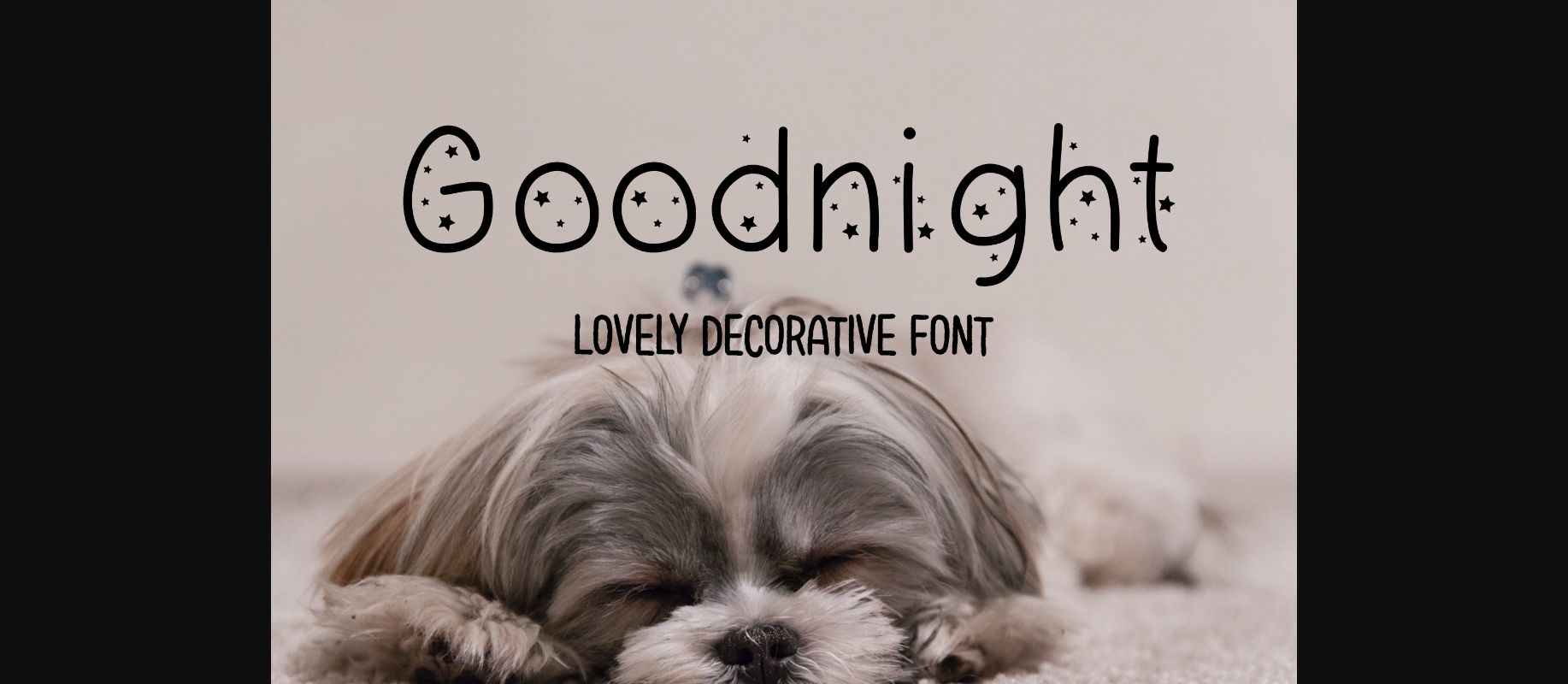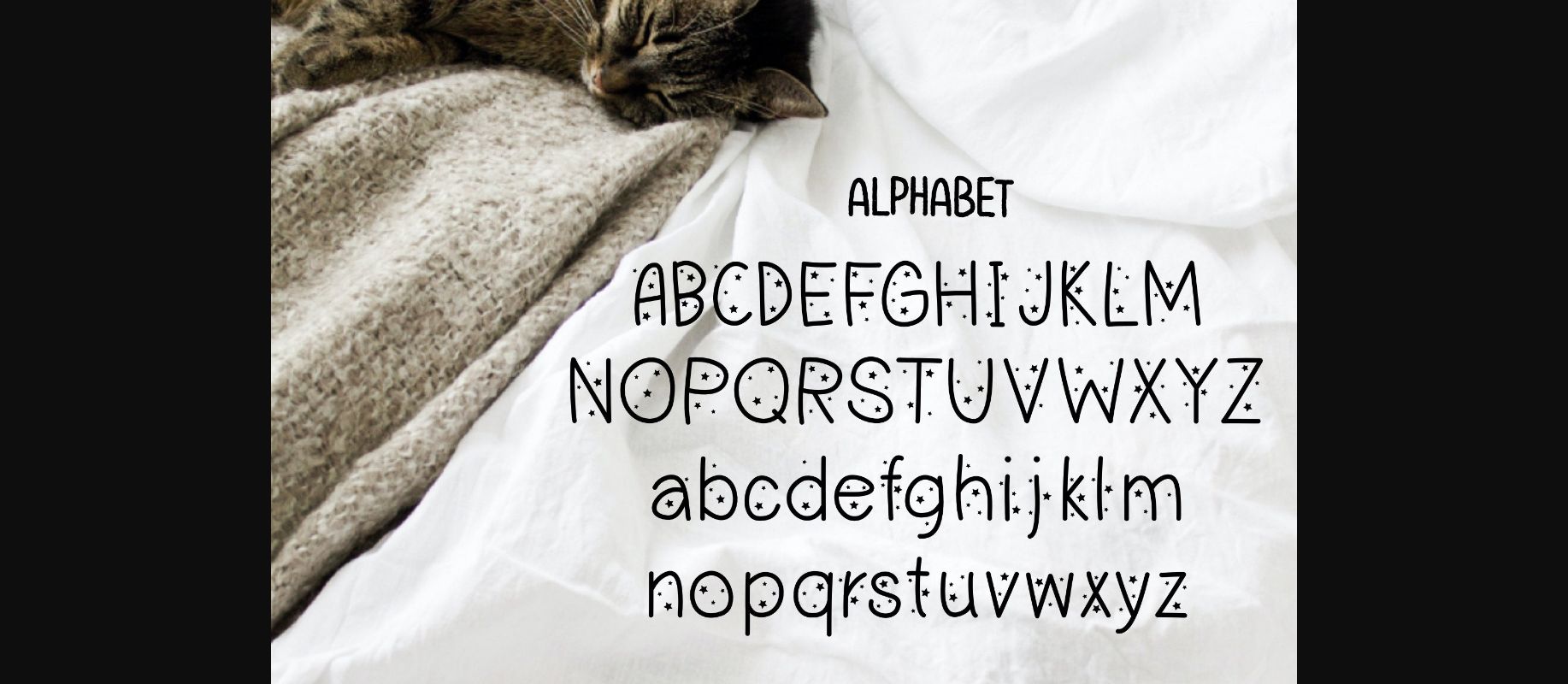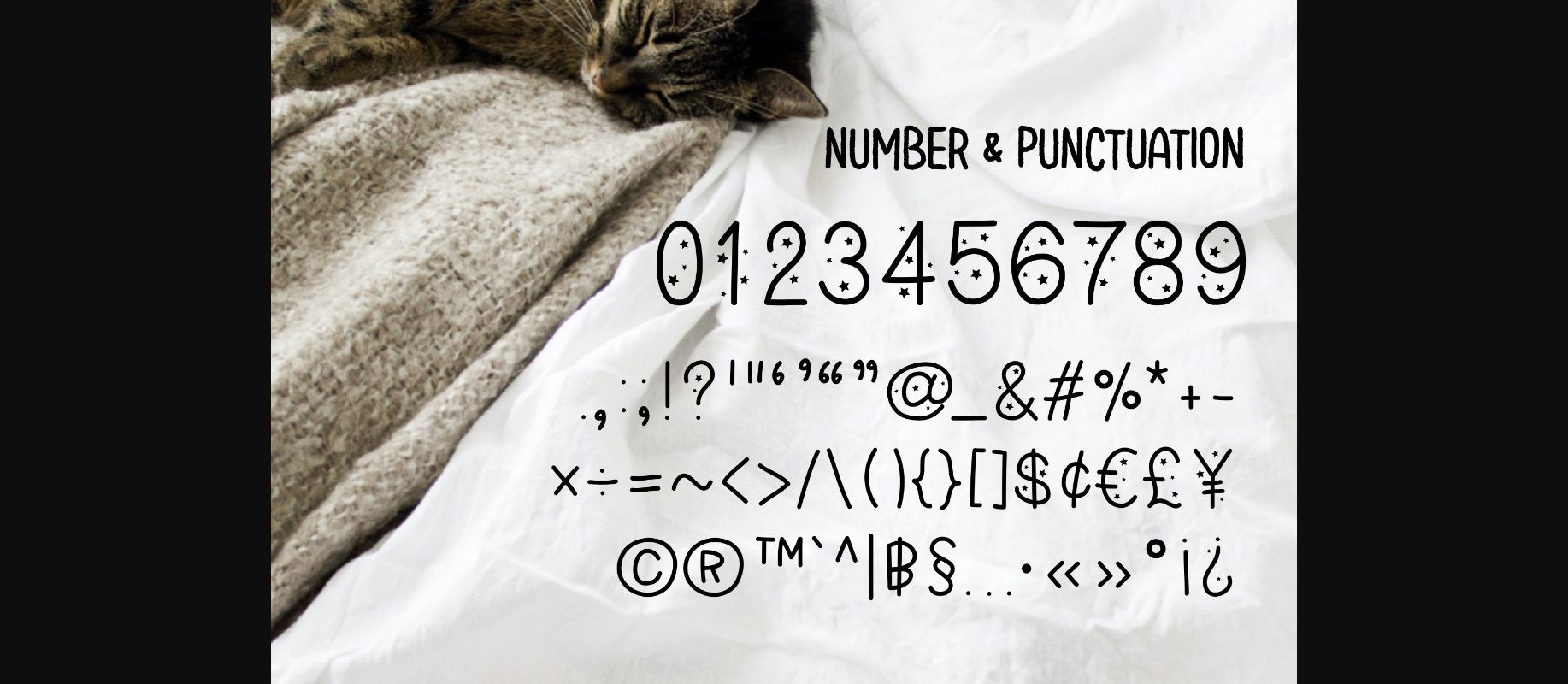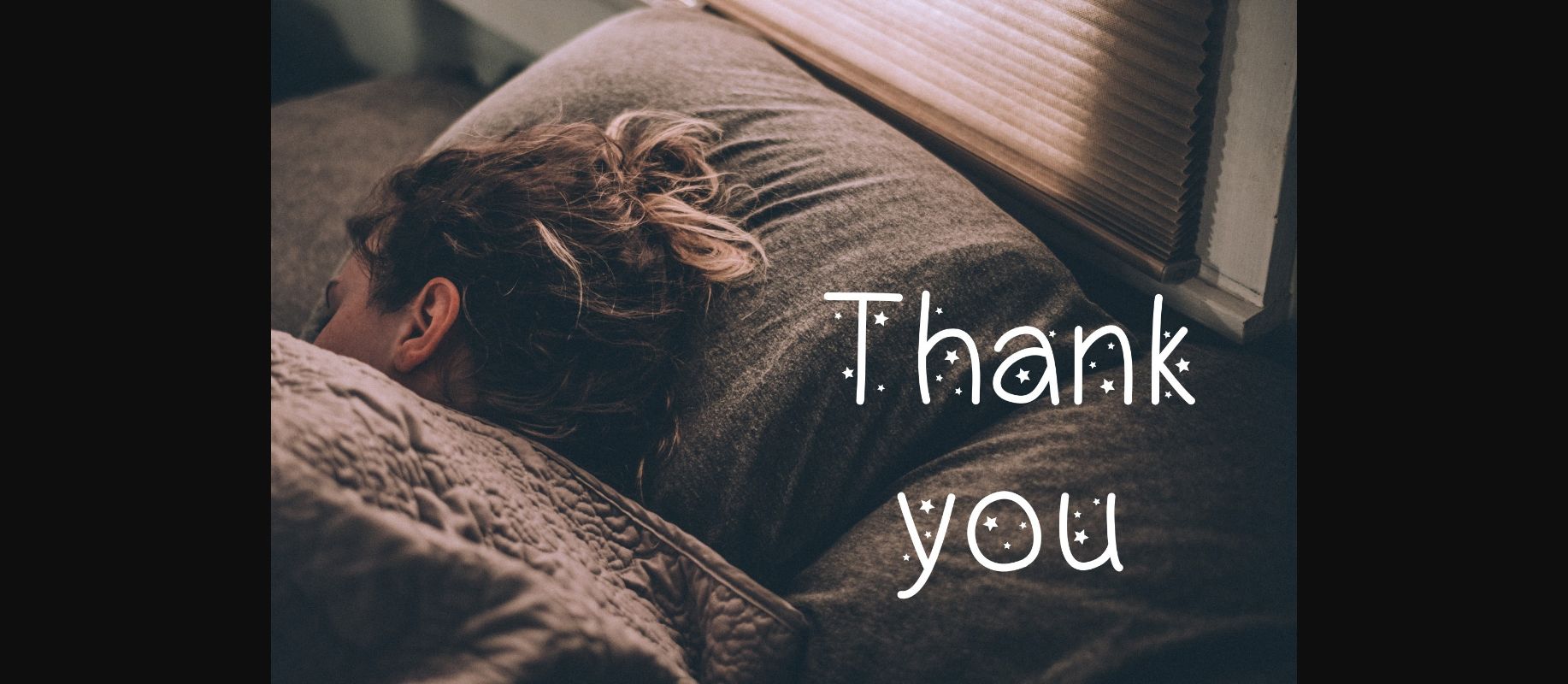
Goodnight Font
About Goodnight Font
Goodnight is a cute Display font. Clean and a cute, this font is the perfect fit for all of your logos, branding, social media, crafty DIY projects, and much more!